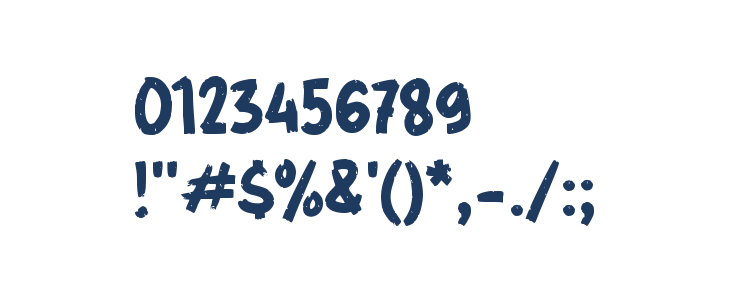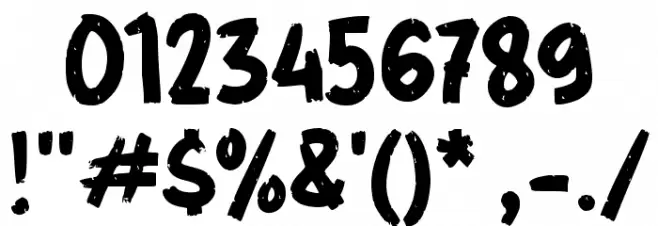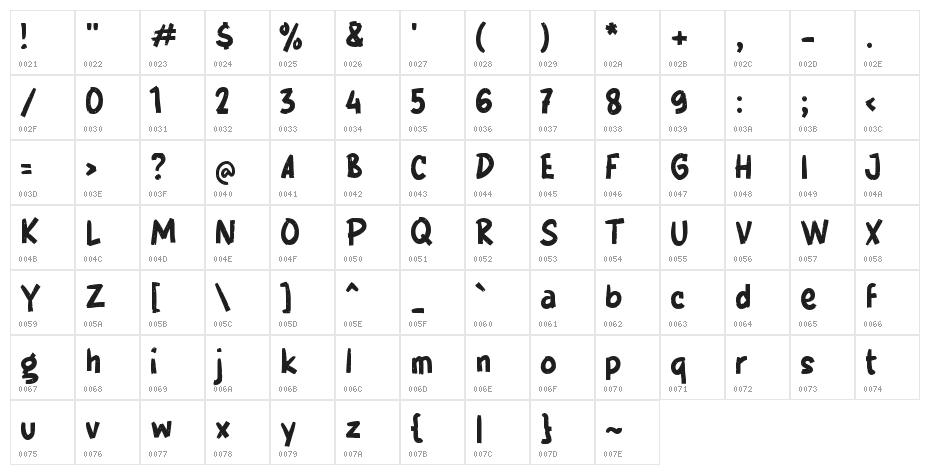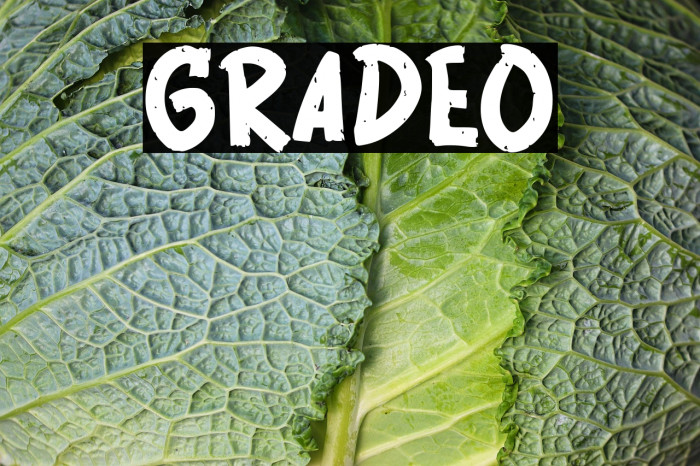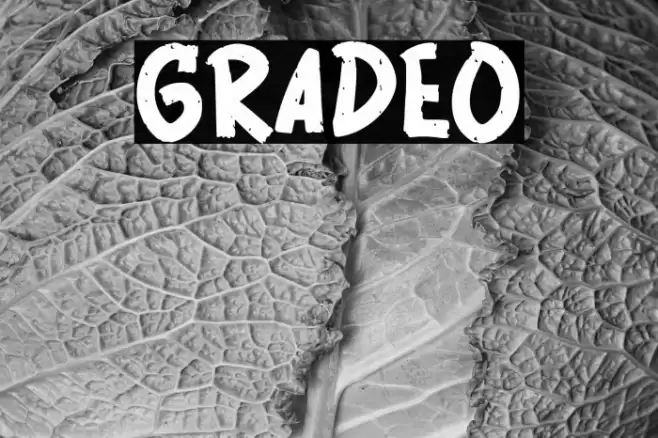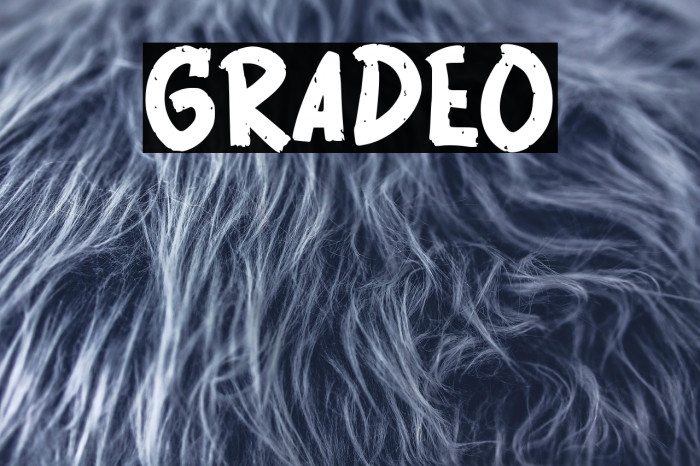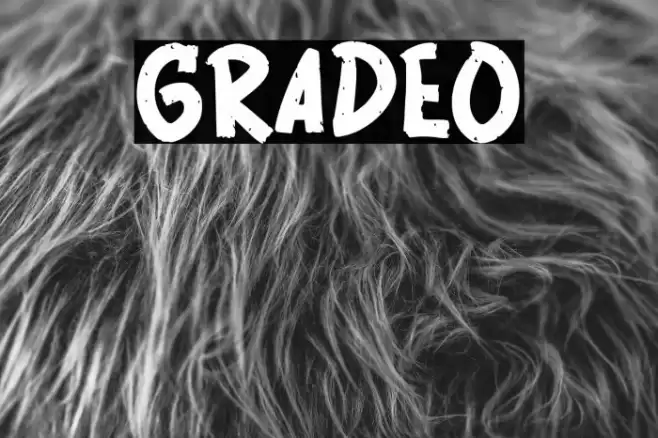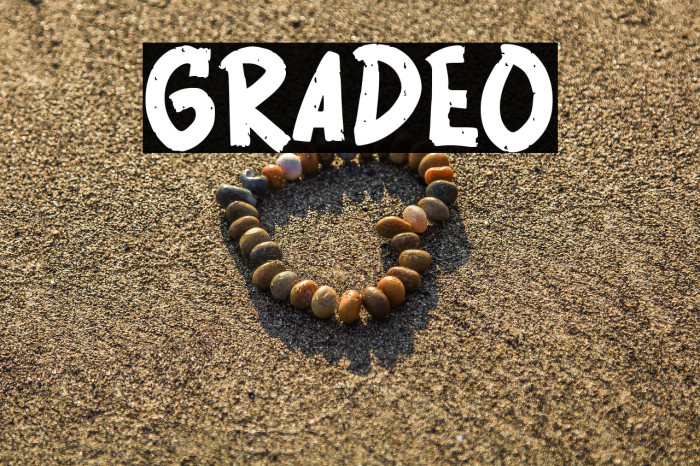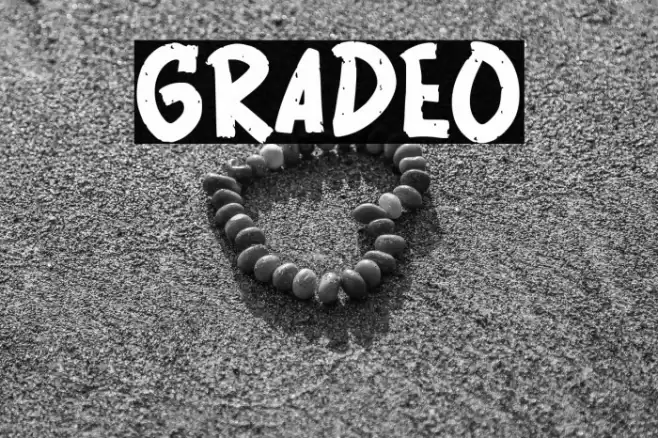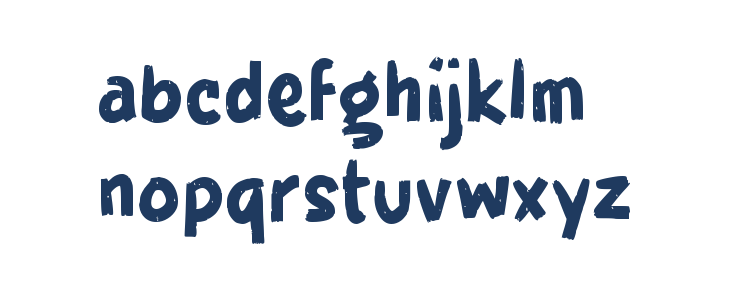
GRADEO Font
GRADEO Description
This font features a bold and playful style with a hand-drawn appearance. The characters are slightly irregular, adding a whimsical and informal touch. The strokes are thick and consistent, giving the font a strong presence. The uppercase and lowercase letters maintain a cohesive look, while the numbers and special characters complement the overall design. This font is ideal for projects that require a fun and engaging aesthetic, such as children's books, posters, or creative branding materials.
| Proposed Projects | Children's books, posters, creative branding, informal invitations, and playful merchandise. |